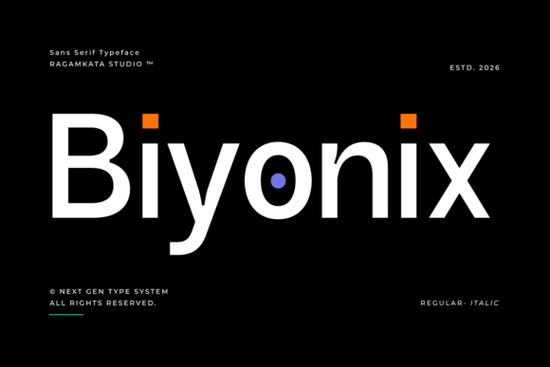
Biyonix Font is a versatile typeface that stands out for its modern, tech-inspired design. If you're looking for a font that combines sleek aesthetics with functionality, Biyonix could be the perfect fit for your projects. Whether you're working on digital interfaces, branding materials, or creative designs, this font offers a clean and professional look that feels both futuristic and approachable.
Designed with a focus on readability and visual impact, Biyonix is ideal for a wide range of applications. From app interfaces to website headers, it maintains a strong presence without overwhelming the viewer. Its geometric structure and subtle techno elements give it a unique edge, making it stand out in a sea of more traditional fonts.
For designers working on technology-related projects, Biyonix provides a reliable choice that aligns with modern trends. It’s particularly well-suited for startups, AI platforms, and software companies looking to establish a forward-thinking brand identity. The font's stylistic alternates also allow for greater customization, helping you create logos and wordmarks that feel both distinctive and professional.
Why Biyonix Font Works Well for Digital Projects
If you're involved in UI/UX design, web development, or digital marketing, you'll appreciate how Biyonix adapts to different formats. Its clean proportions ensure that text remains legible at various sizes, while its advanced OpenType features offer flexibility in typography. This makes it an excellent choice for everything from mobile app screens to large-scale presentations.
One of the key strengths of Biyonix is its balance between minimalism and innovation. It avoids being too flashy while still delivering a sense of modernity. This makes it suitable for both bold headlines and subtle body text, depending on your design needs. You can use it to create a cohesive visual language across multiple platforms and mediums.
How to Use Biyonix in Your Design Workflow
Whether you're working on a logo, a website layout, or a product package, Biyonix offers a range of possibilities. Its versatility means you can use it in both digital and print formats without losing quality. For example, you might pair it with a more traditional font for contrast, or use it as the primary typeface for a sleek, tech-oriented design.
When using Biyonix, consider the tone and message you want to convey. Its futuristic aesthetic works well for brands that want to appear innovative and forward-thinking. At the same time, its clean lines and balanced structure make it appropriate for more conventional projects as well. This adaptability is one reason why it’s popular among designers across different industries.
For those new to font selection, it's helpful to test different typefaces in real-world scenarios. Try using Biyonix in a mock-up or prototype to see how it performs in different contexts. This will help you determine whether it meets your design goals and enhances your overall visual strategy.
Remember, the right font can make a big difference in how your work is perceived. By choosing a typeface like Biyonix, you’re not just selecting a style you're making a statement about your brand and your design philosophy.
Before finalizing your design, take a moment to review how Biyonix looks across different devices and backgrounds. Ensure that it remains readable and visually appealing in all situations. This attention to detail can elevate the professionalism of your project and leave a lasting impression on your audience.
Consider experimenting with different weights and styles within the Biyonix family to find the best match for your specific needs. Whether you need something bold for a headline or something subtle for a body text, there’s likely a variation that fits perfectly.
As you continue to explore and refine your design process, keep in mind that fonts are powerful tools for communication. With the right choice, you can enhance the clarity, appeal, and impact of your creative work.
Take a few minutes to evaluate how Biyonix could support your next project. Test it in different settings, compare it with other fonts, and decide if it aligns with your vision. This step can lead to more confident and effective design decisions in the long run.